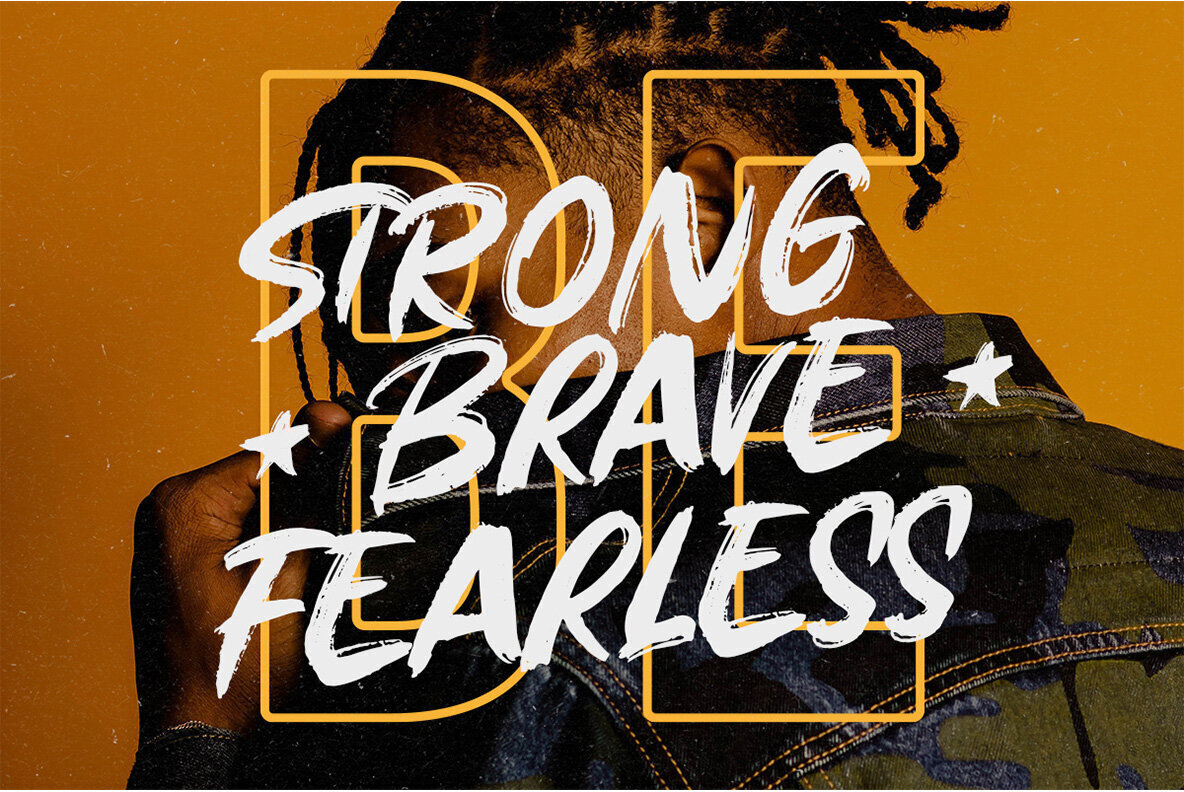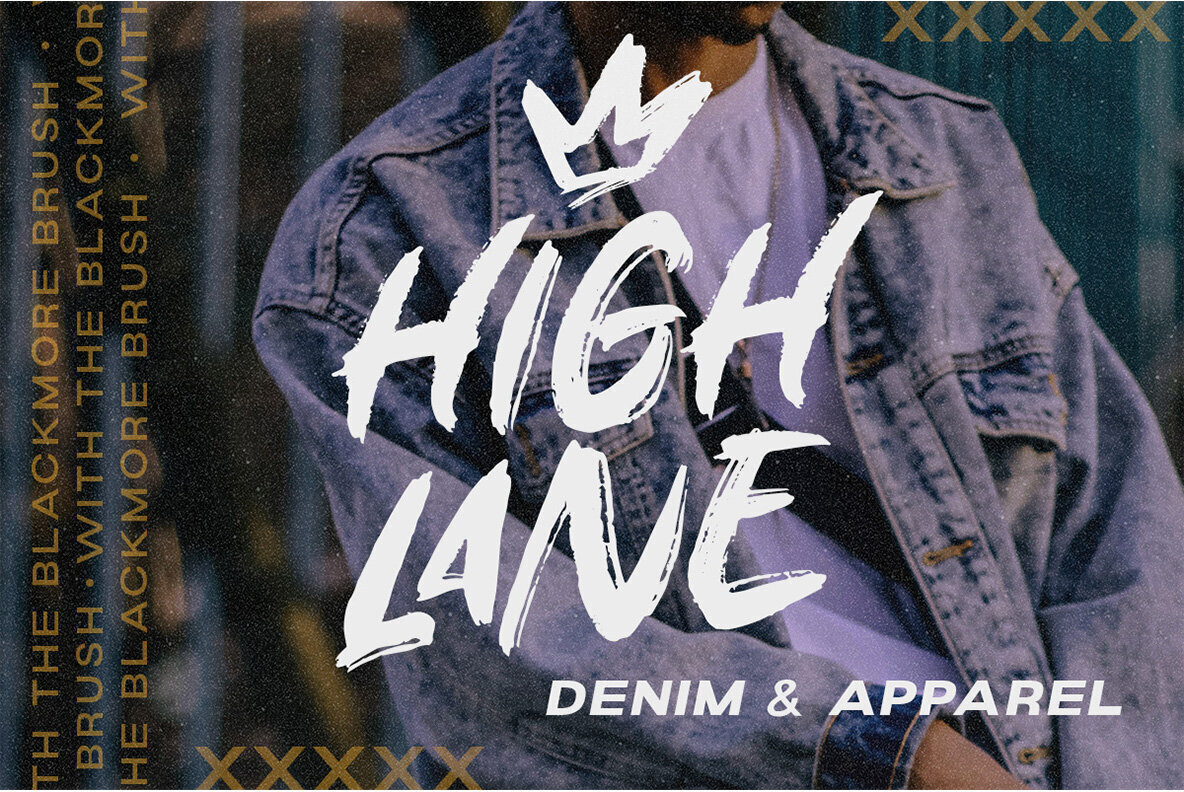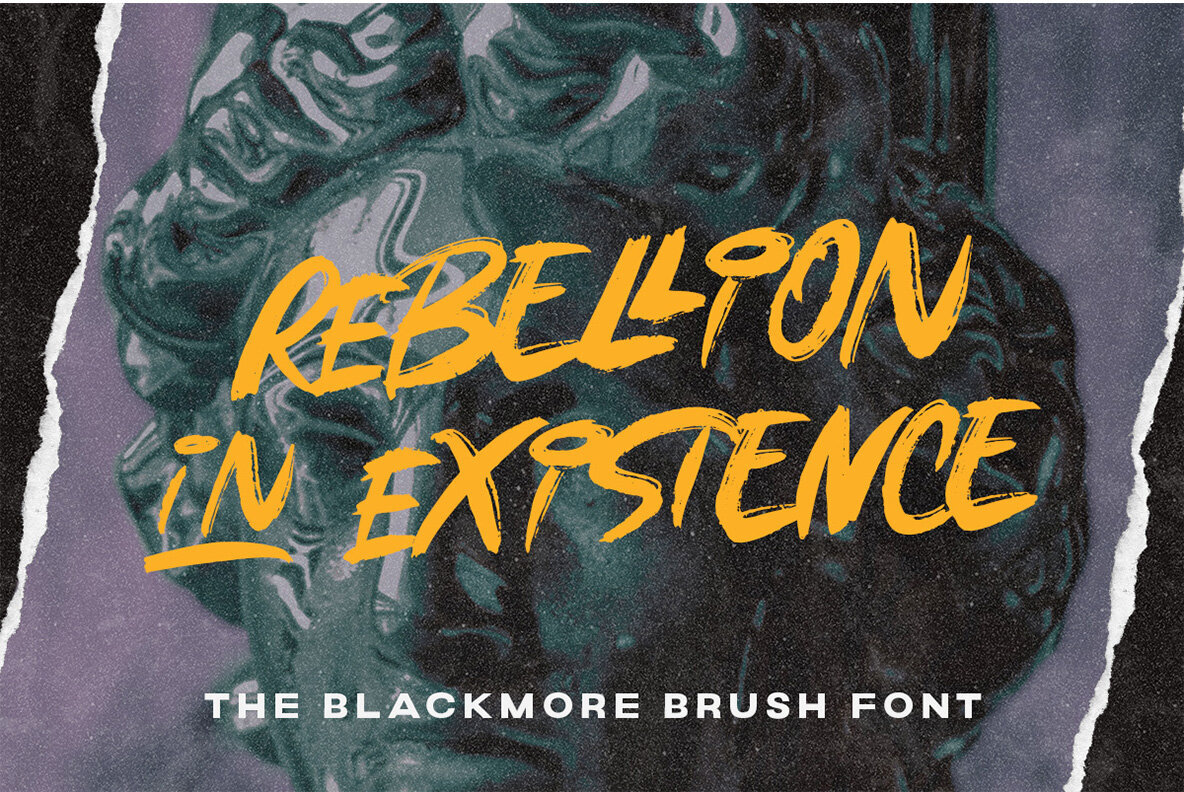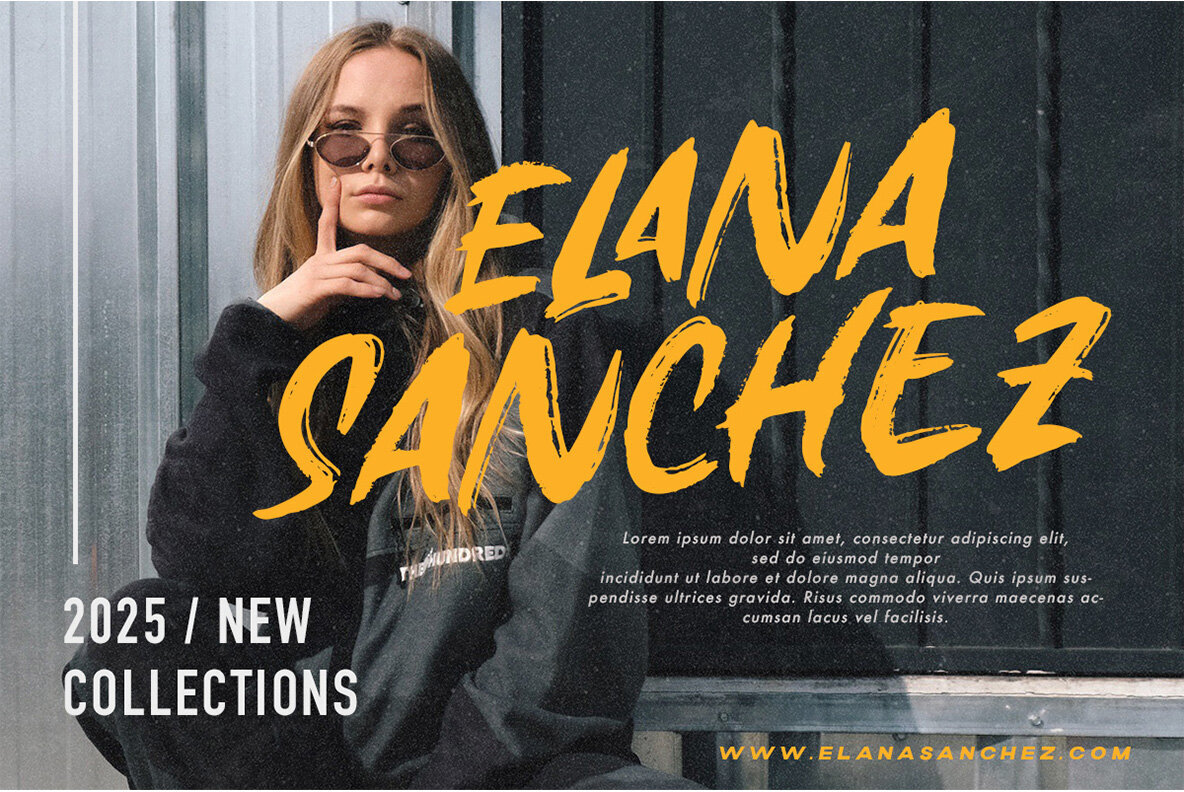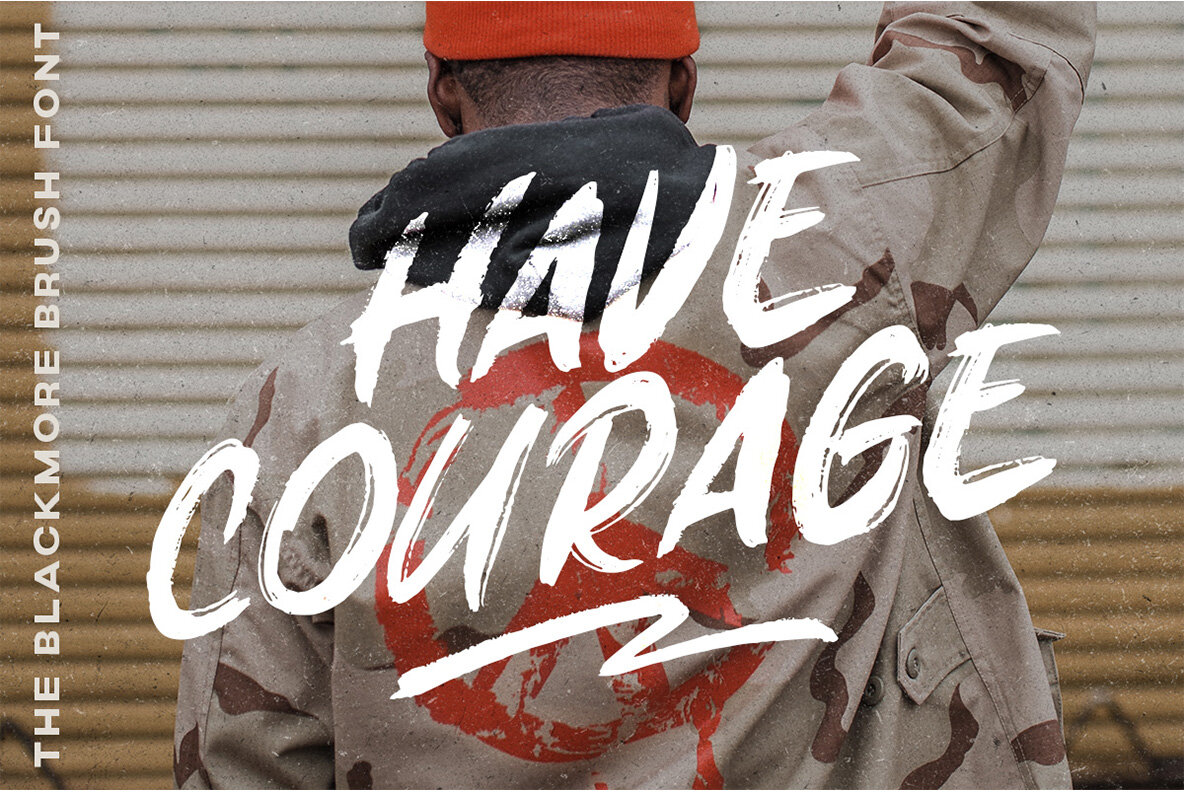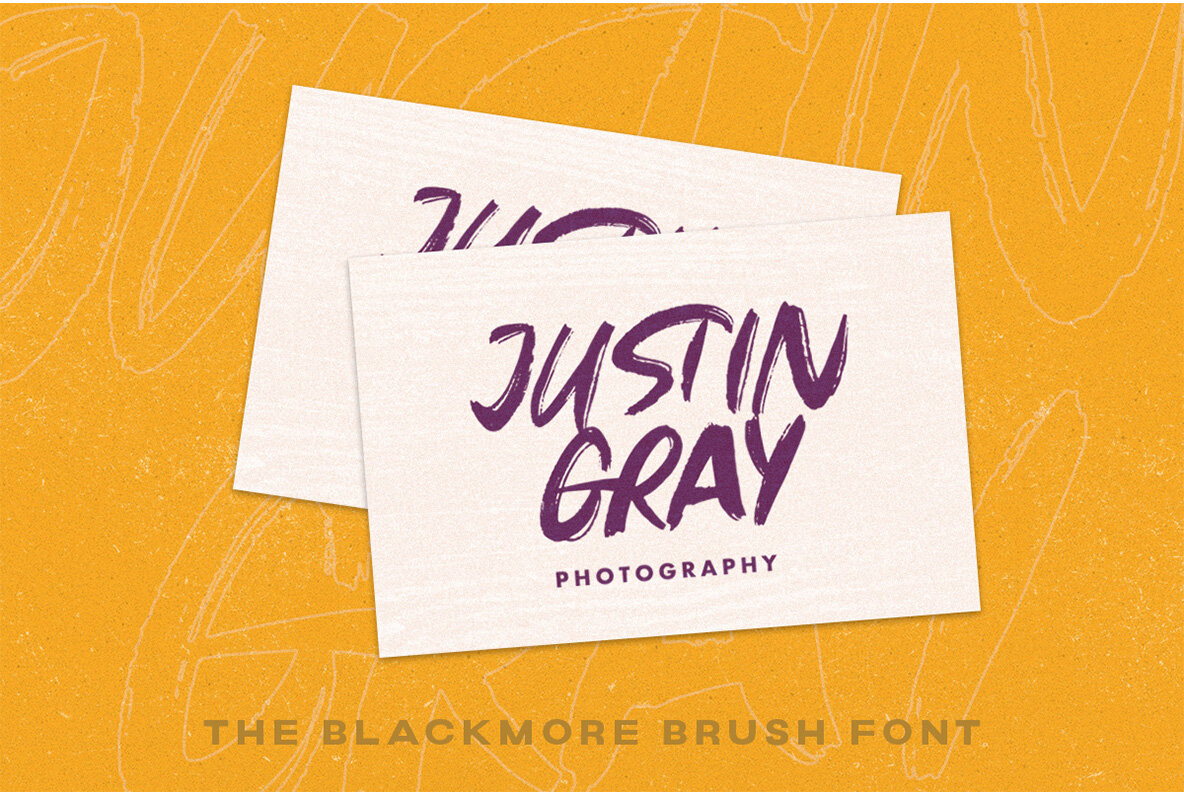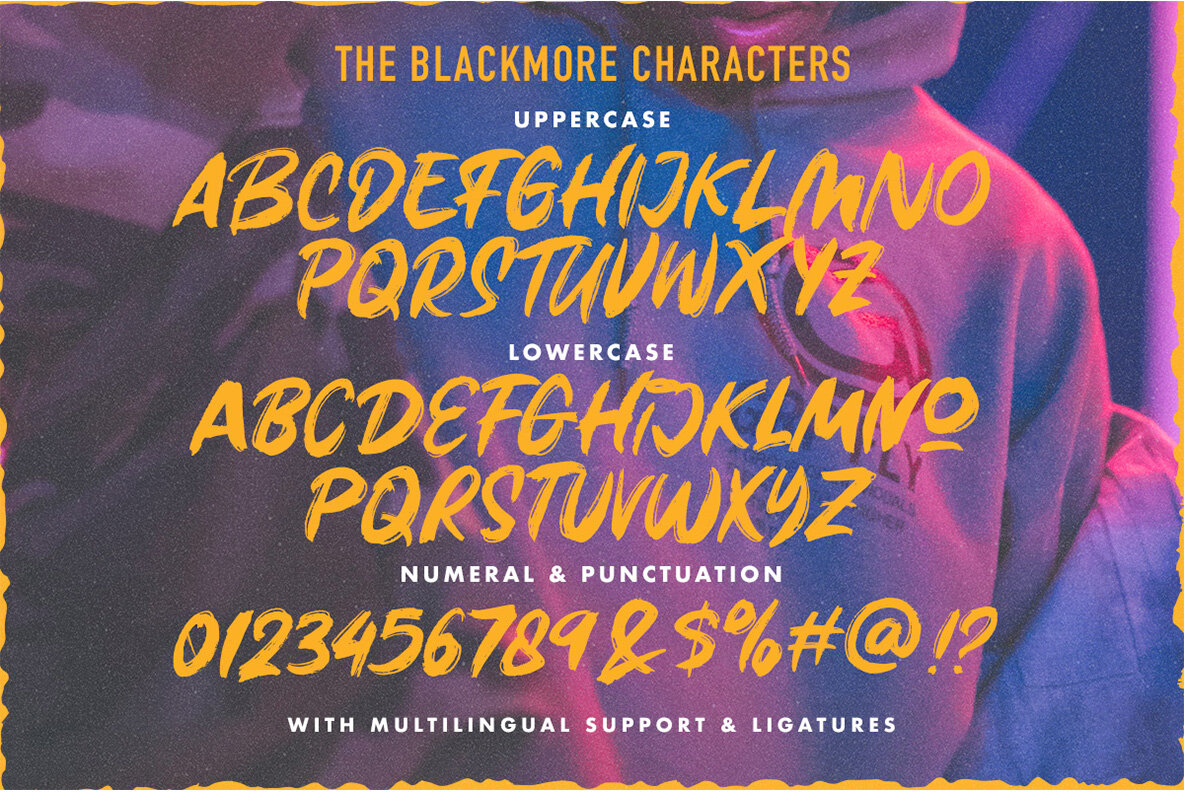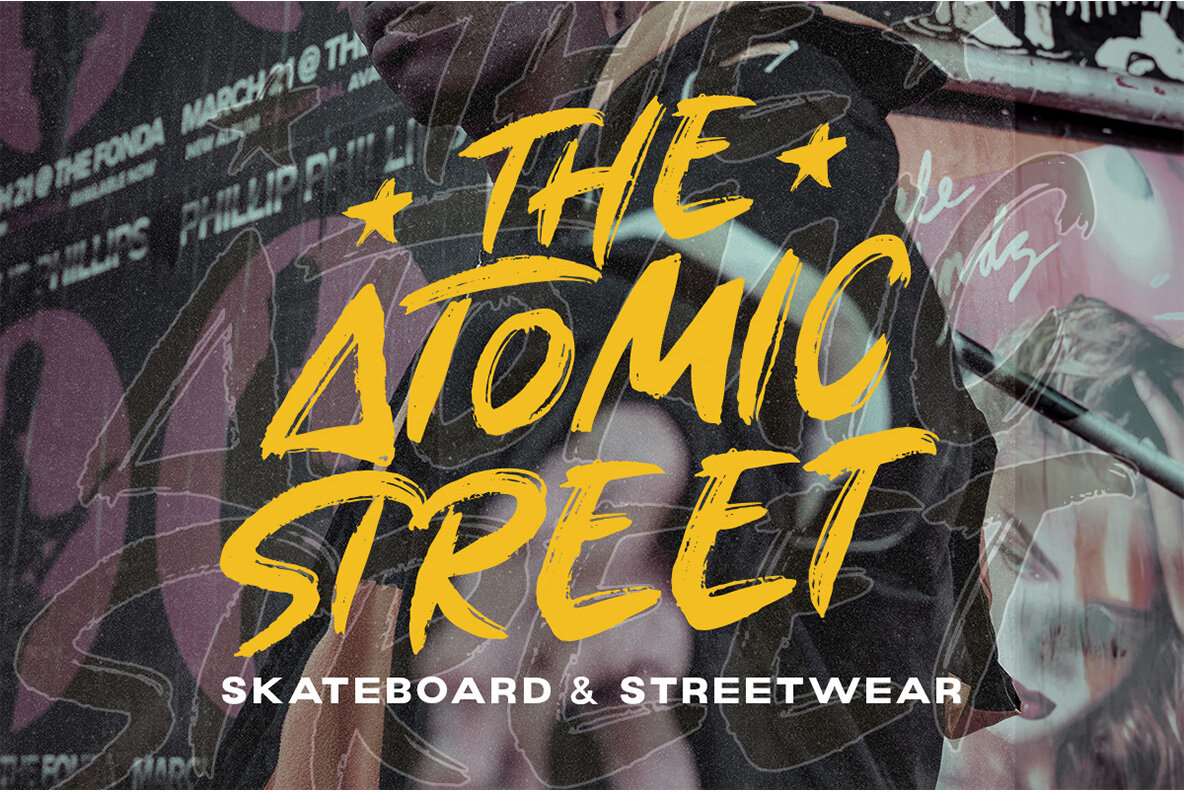
The Blackmore Font
The Blackmore Regular
The Blackmore is an elegant script font that can be used to create logos, headlines and signatures. It's perfect for designing anything from cards you send out through invitations or books where its bold style will stand out against the other text on your page!
- Numbers and Punctuation